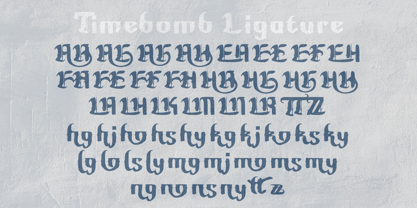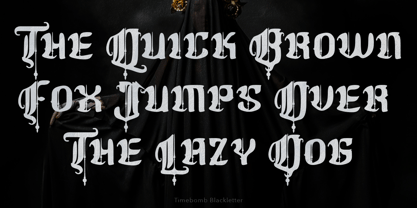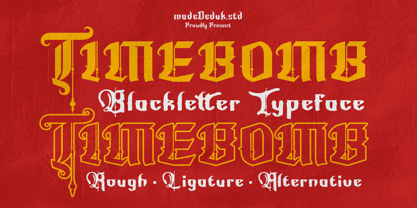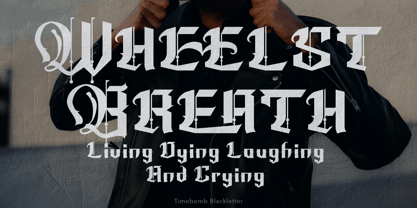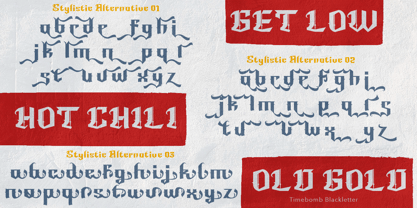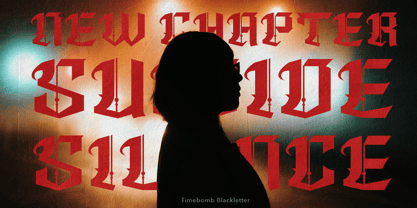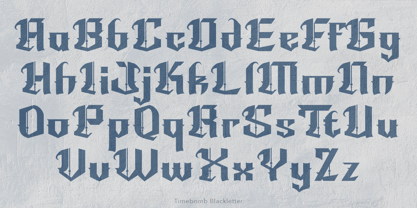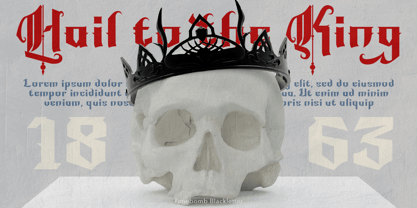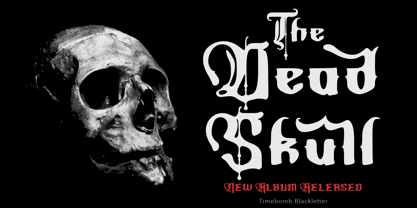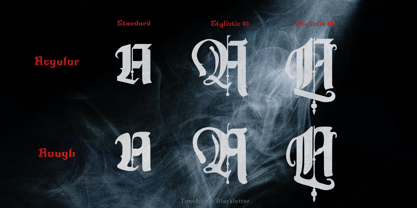
Timebomb Blackletter
by madeDeduk
The Timebomb Blackletter Font Family was designed by madededuk and published by madeDeduk. Timebomb Blackletter contains 2 styles and family package options.
Timebomb is a modern Blackletter display font with alternates that have a strong flair. Come with regular and rough versions, an ideal choice for tattoo shops, drink labels, clothing labels, band logos, fashion apparel, book covers, game design, packaging design and many more.